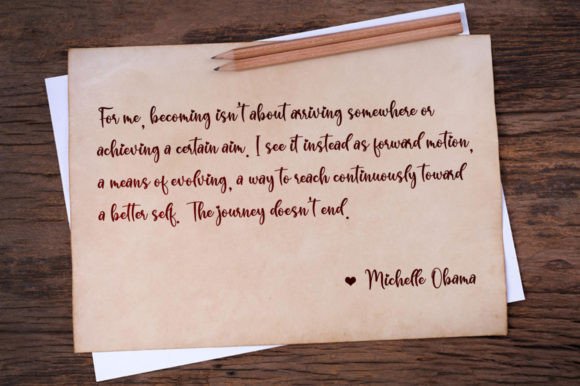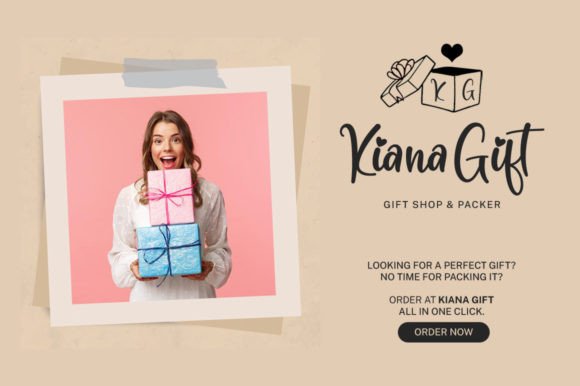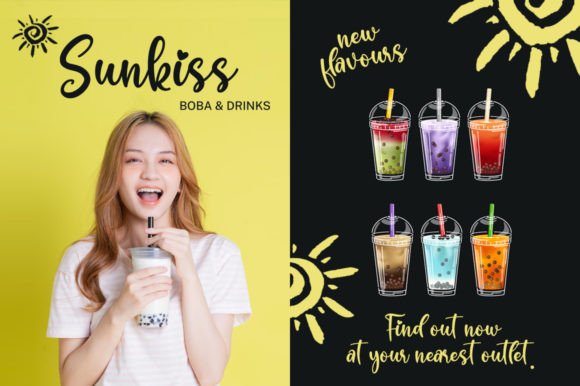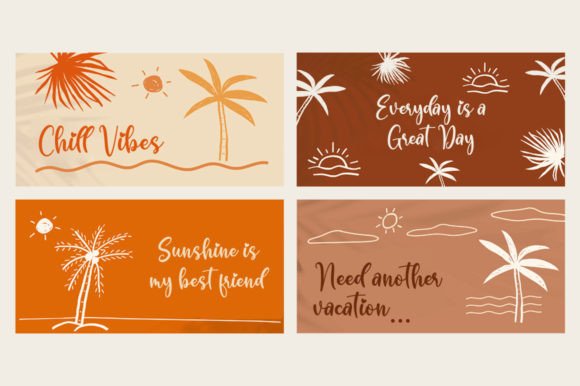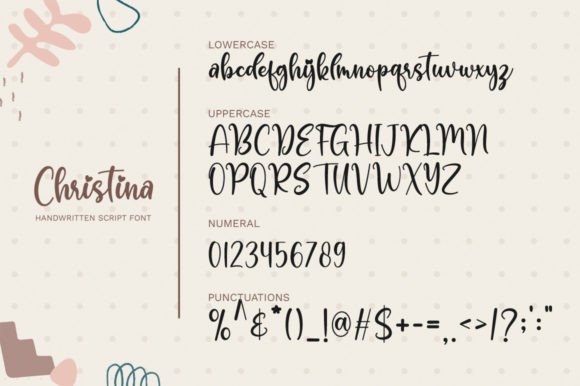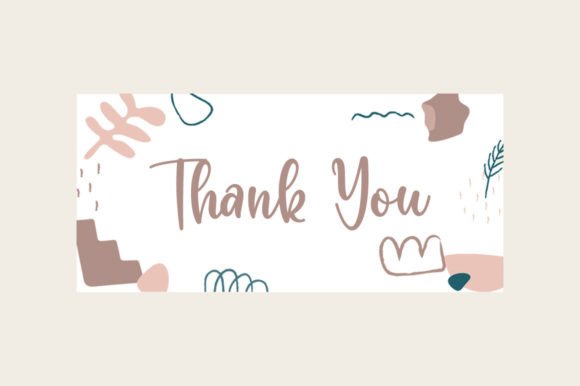
Introducing Christina Font: The Perfect Handwritten Touch for Your Designs
Are you looking for a font that adds a touch of personality and whimsy to your designs? Look no further than Christina Font! This fun and smart-looking handwritten font is perfect for a variety of design projects, from invitations and thank you cards to quotes, greeting cards, logos, business cards, and more.
What Makes Christina Font So Special?
Christina Font is a unique and eye-catching handwritten font that is sure to make your designs stand out. Its ravishing appearance is perfect for adding a customized touch to any project. Whether you’re a designer, crafter, or DIY enthusiast, Christina Font is a versatile and easy-to-use font that will help you create beautiful and professional-looking designs.
Christina Font is a versatile font that can be used for a wide range of design projects, including:
- Invitations: Whether you’re planning a wedding, birthday party, or other special event, Christina Font is the perfect choice for creating beautiful and eye-catching invitations.
- Thank You Cards: Show your appreciation with personalized thank you cards featuring Christina Font.
- Quotes: Add a touch of elegance and sophistication to your quote designs with Christina Font.
- Greeting Cards: Create beautiful and heartfelt greeting cards for any occasion with Christina Font.
- Logos: Use Christina Font to create a unique and memorable logo for your business or brand.
- Business Cards: Stand out from the crowd with customized business cards featuring Christina Font.
Why Choose Christina Font?
There are many reasons why Christina Font is a great choice for your design projects. Here are just a few:
- Unique and Eye-Catching: Christina Font is a one-of-a-kind handwritten font that is sure to grab attention.
- Easy to Use: Christina Font is a straightforward and easy-to-use font that is perfect for designers of all skill levels.
- Versatile: Christina Font can be used for a wide range of design projects, from invitations and greeting cards to logos and business cards.
- Customizable: With Christina Font, you can add your own personal touch to your designs and make them truly unique.
Tips for Using Christina Font
Here are a few tips for getting the most out of Christina Font:
- Experiment with Different Sizes and Colors: Christina Font looks great in a variety of sizes and colors, so don’t be afraid to experiment and find the perfect combination for your design.
- Pair with Other Fonts: Christina Font pairs well with a variety of other fonts, so try combining it with other fonts to create a unique and interesting design.
- Use for Headings and Titles: Christina Font is perfect for headings and titles, so use it to add a touch of personality and whimsy to your designs.